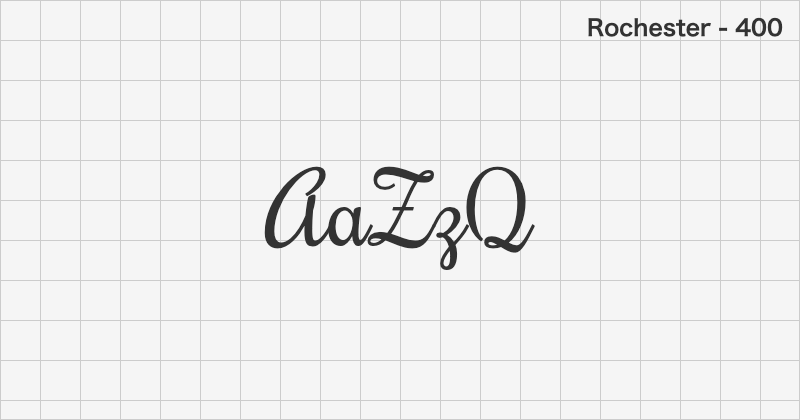
Rochester – Handwriting Fonts Free for Commercial Use
Rochester is an elegant script font inspired by Victorian and Art Deco styles, featuring refined letterforms and a sophisticated appearance. The design adds a touch of class to any correspondence.
Rochester was created by Sideshow, focusing on delivering a stylish and formal typeface. The font is ideal for applications that require an elevated and polished look.